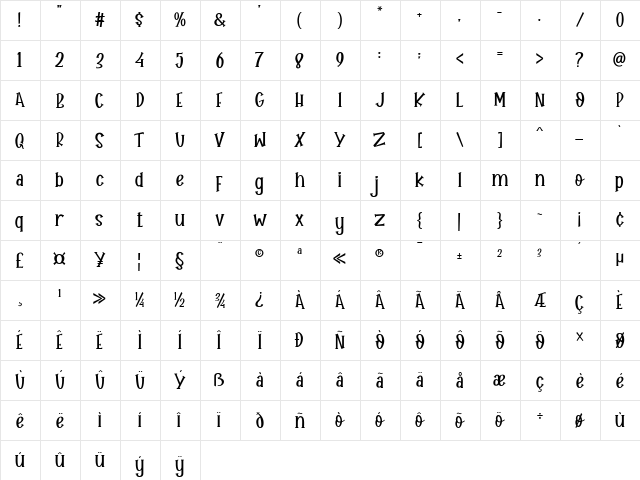
Hellow Knight Regular
Design Context for Hellow Knight Typeface
Hellow Knight is a composed and adaptable typeface that performs quietly and consistently across a wide range of design contexts.
Pro Tip: Pair Hellow Knight with a font of contrasting weight or personality to build a more expressive typographic hierarchy.